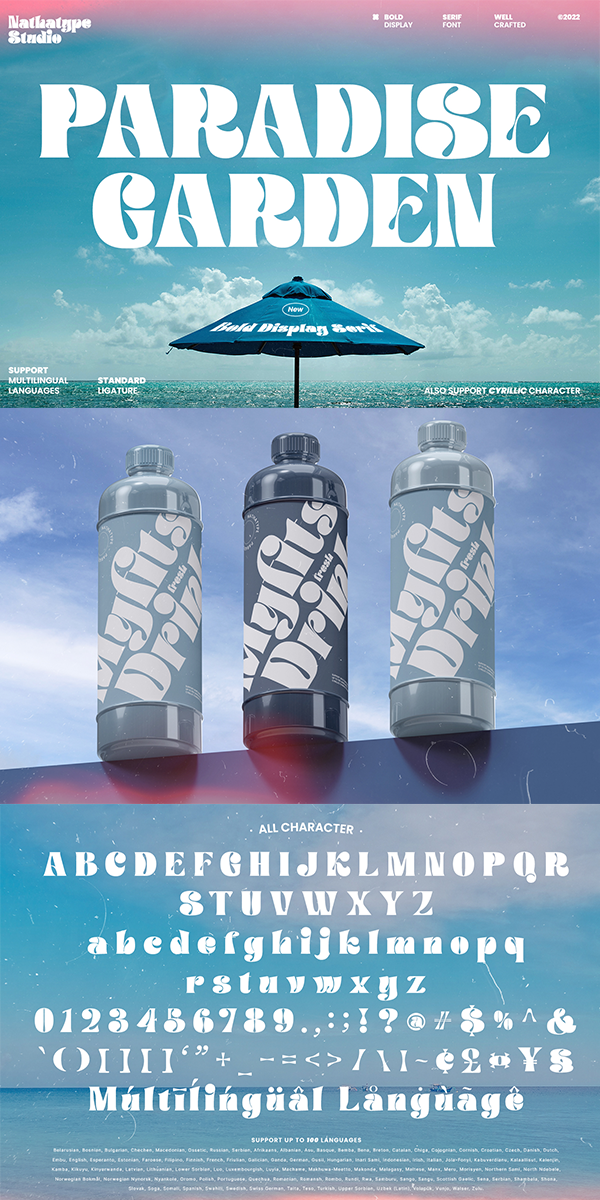
Paradise Garden Font
About Paradise Garden
Paradise Garden is a serif font in thick weights and round shapes. Due to the weight and shape, this font expresses cute, friendly impressions on your designs. Its main characters are first, the noticeable differences between the thick and the thin lines and second, vertical and horizontal hooks or little wipes on the edges of each letter. It is better applied for big texts for a legibility purpose.